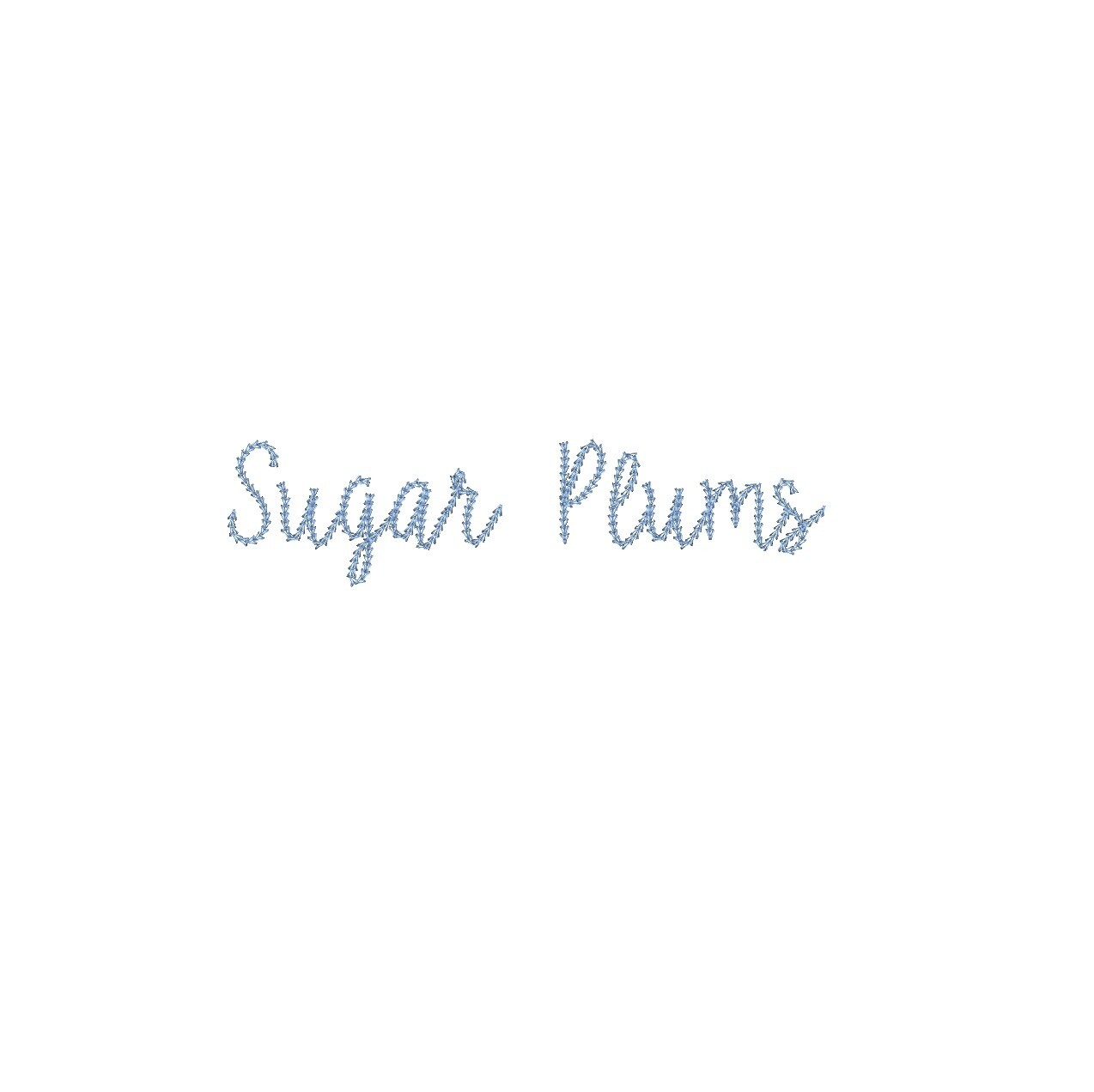
Elevate your embroidery with the enchanting Sugar Plums Chain Stitch ESA font. Perfectly compatible with Wilcom Studio e4.5.6 and Hatch 3 versions and above, this font adds a touch of whimsy to your creations. Craft charming monograms, labels, and embellishments with ease. Seamlessly integrate the font for a smooth creative process. Download Sugar Plums Chain Stitch ESA font now to infuse your embroidery with a burst of creativity. Elevate your projects with this exceptional font, turning each piece into a delightful masterpiece. Add a touch of magic to your designs with this captivating addition to your toolkit.